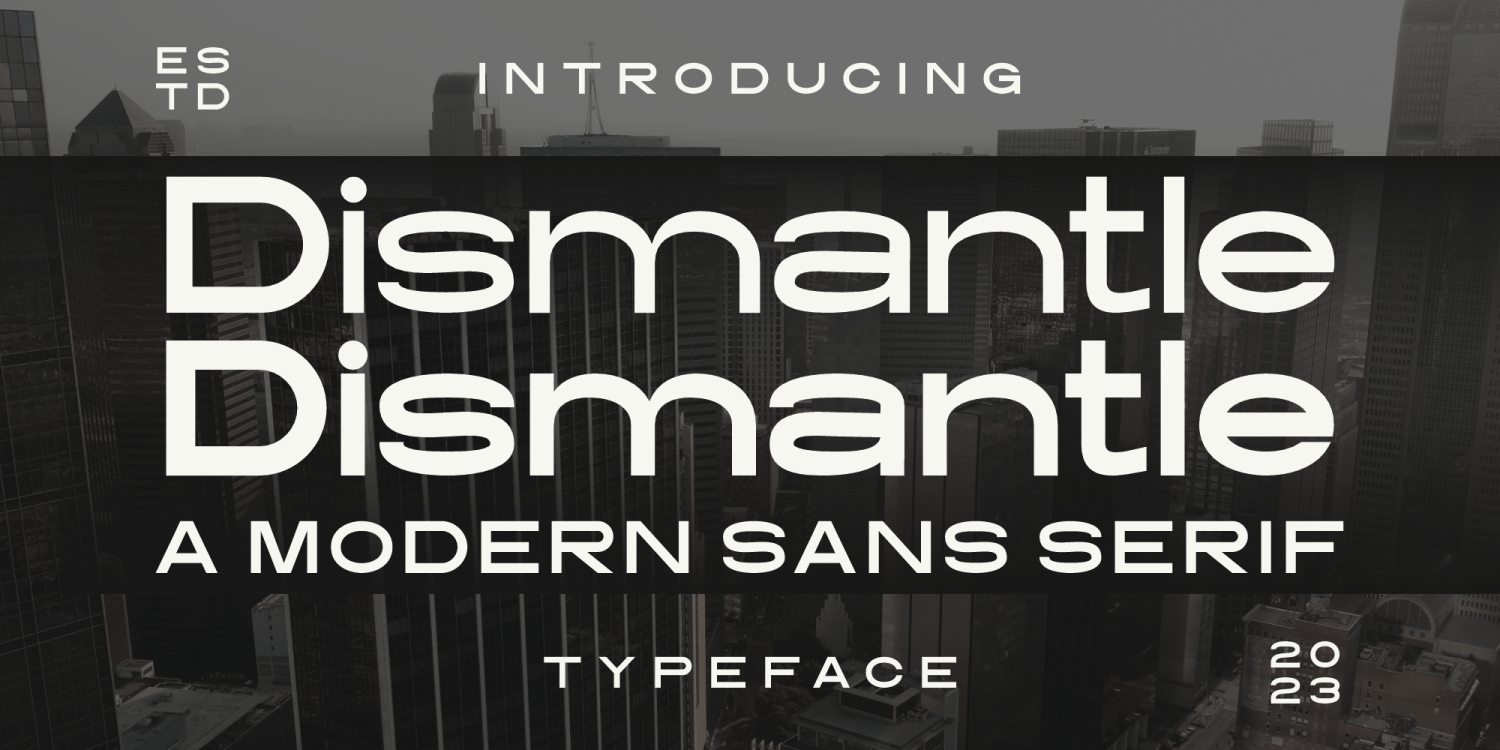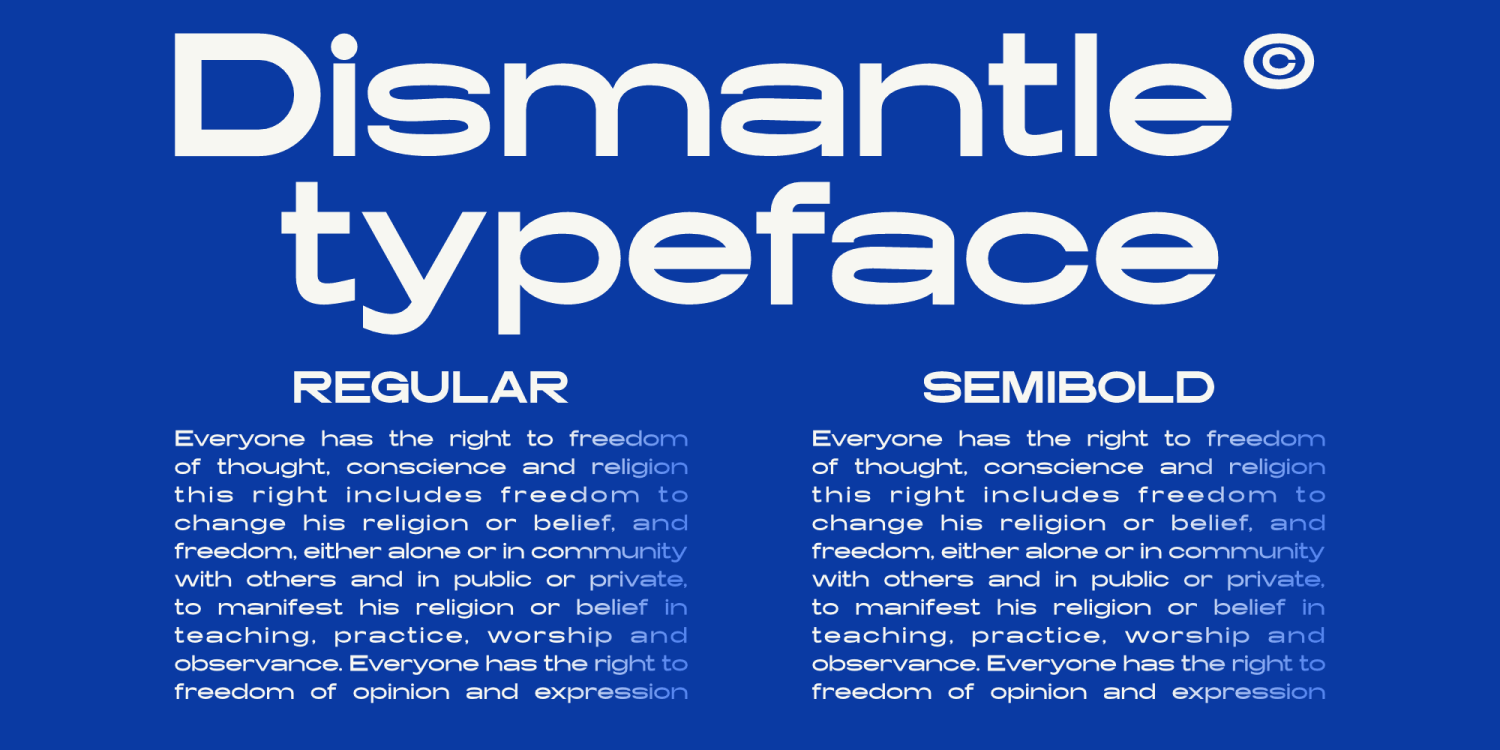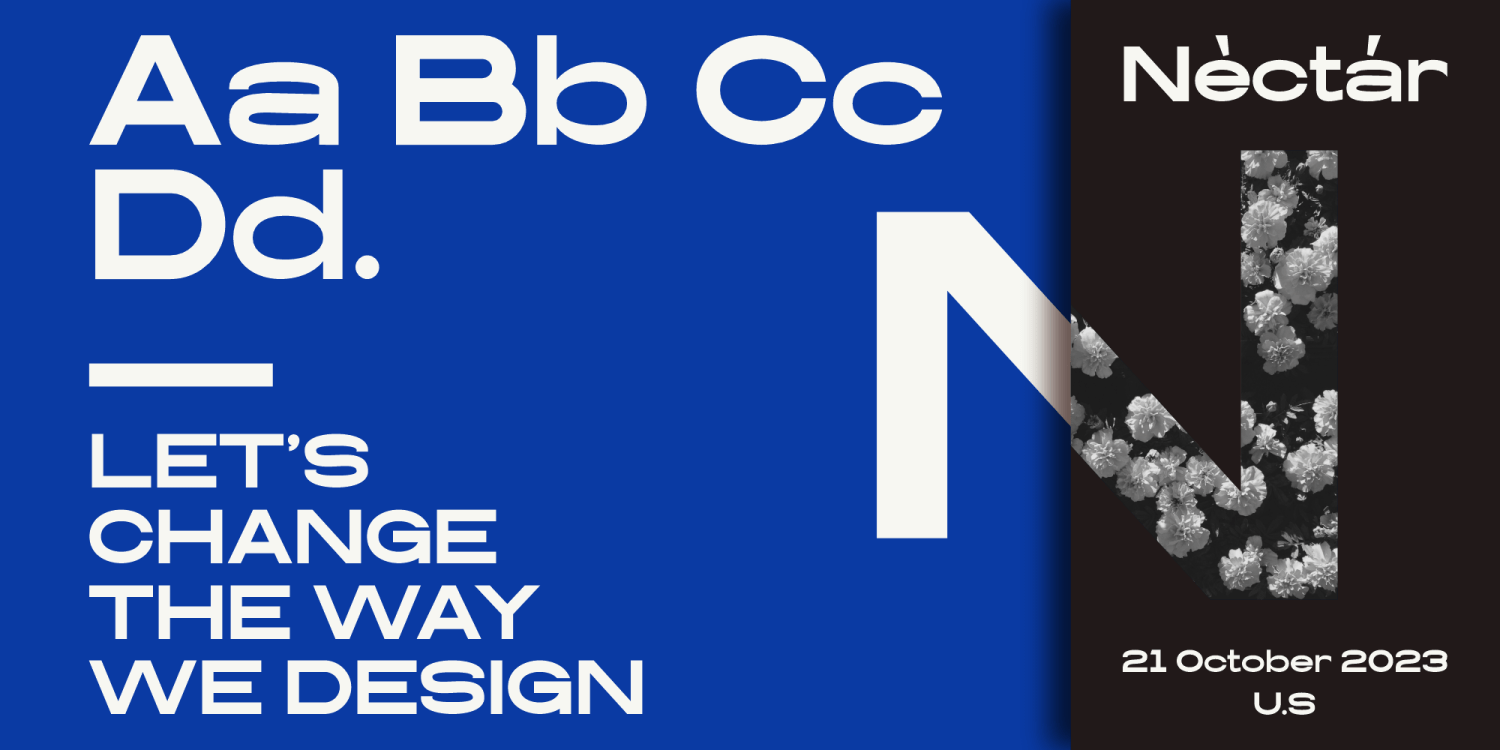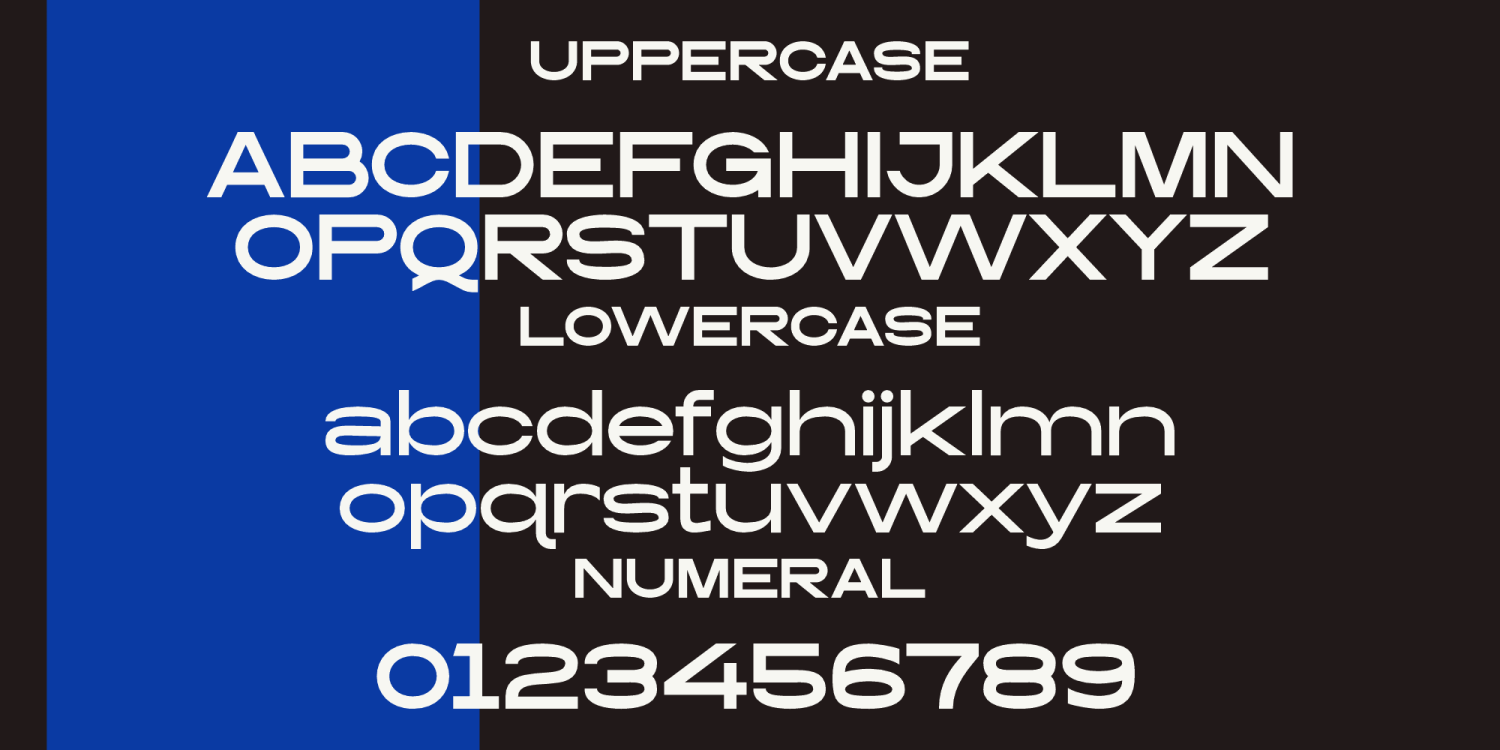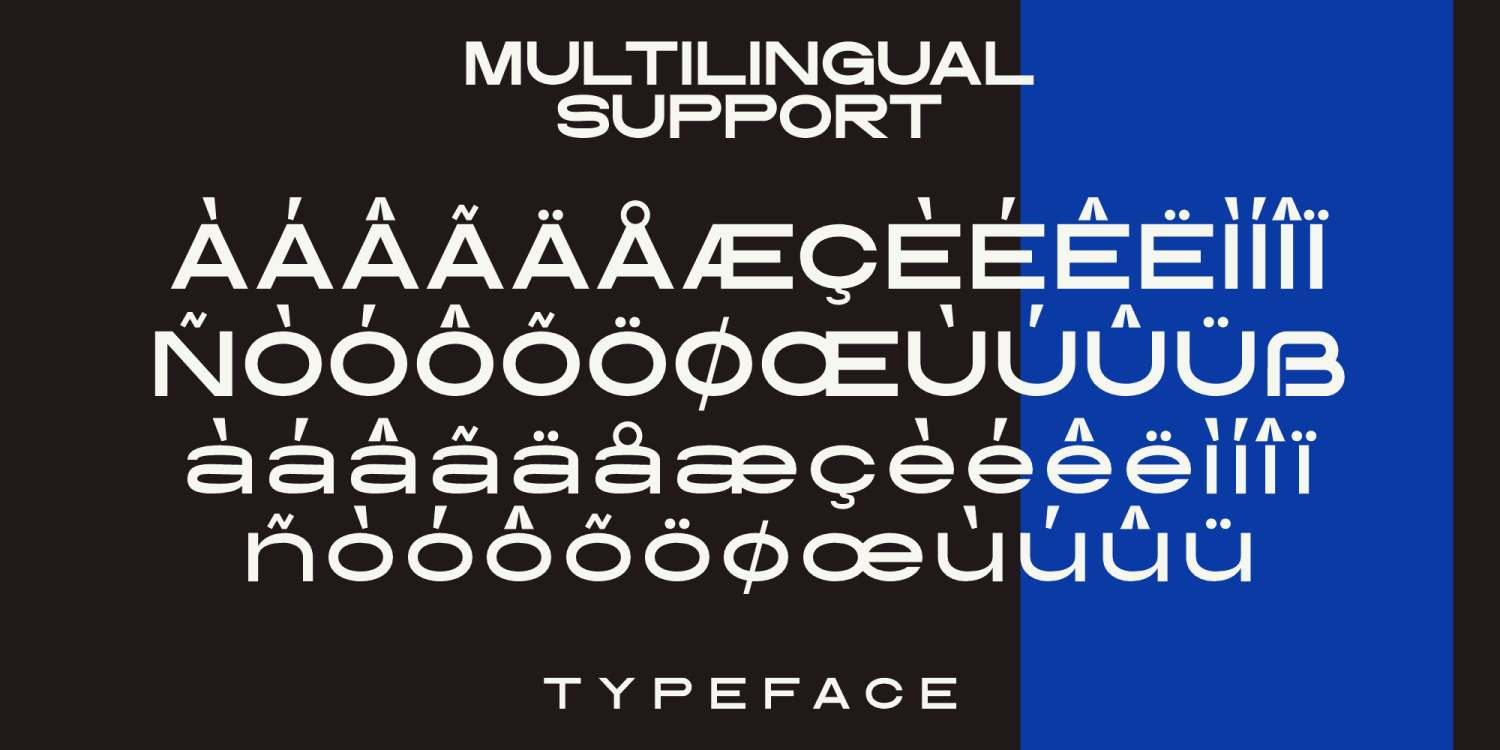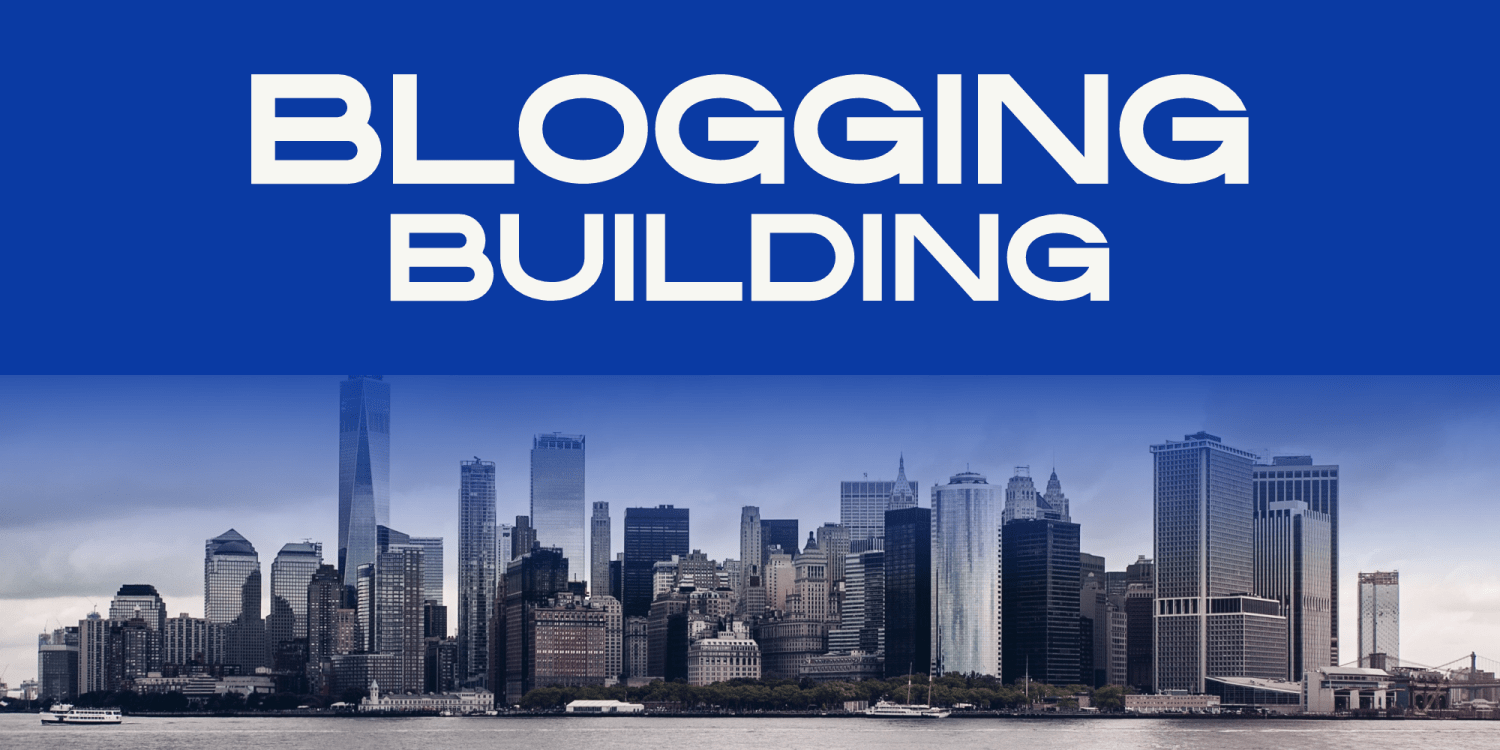
Dismantle
Font Family by Marvadesign
Introducing The "Dismantle" typeface is a modern sans-serif font that embodies a sleek, contemporary aesthetic with a bold and structured design. Its geometric yet slightly rounded letterforms create a perfect balance between futurism and readability, making it suitable for branding, headlines, and digital interfaces. The typeface comes in multiple weights, including Regular and Semibold, offering versatility in typographic compositions. Its clean lines and well-spaced characters ensure optimal legibility across various applications, from web design to editorial layouts.